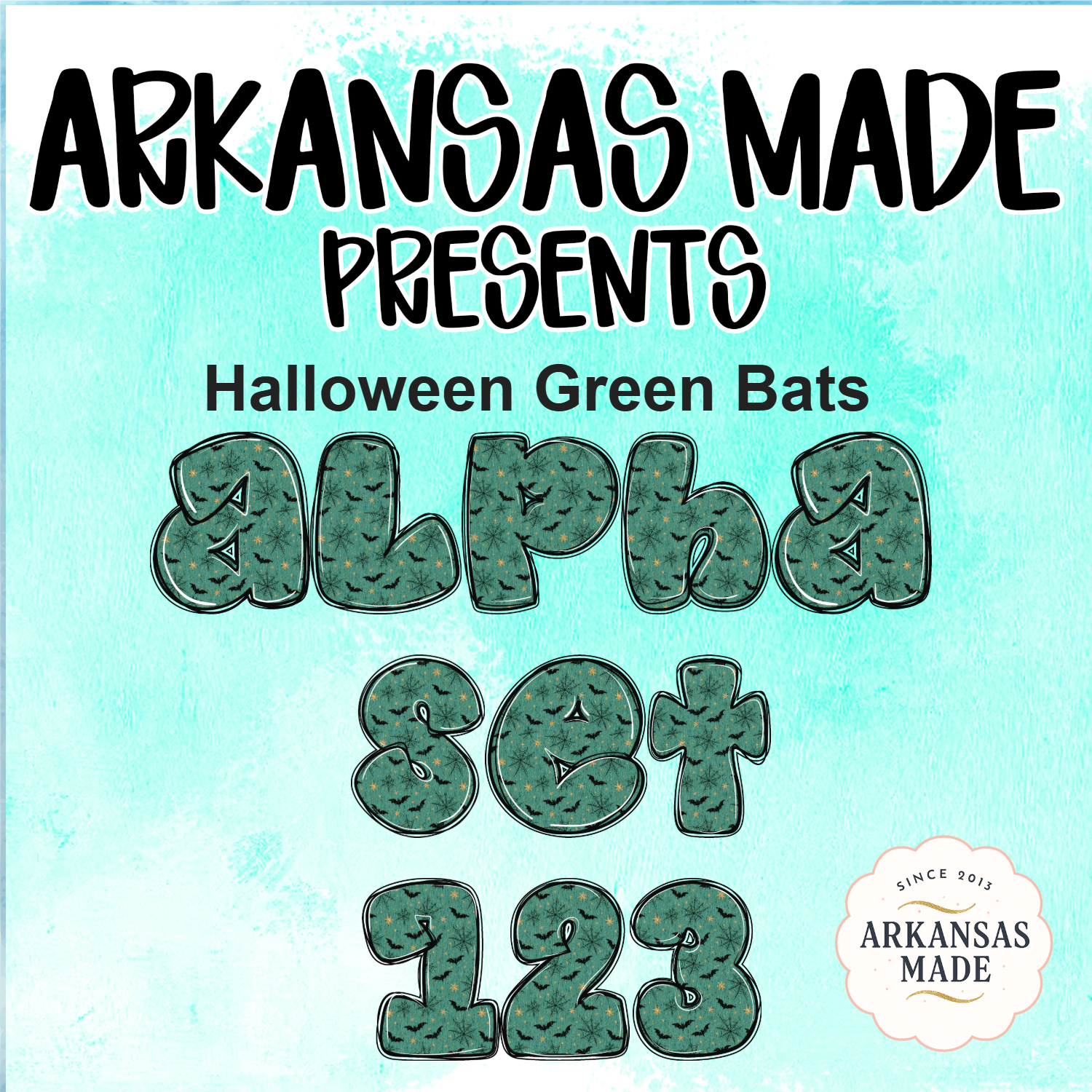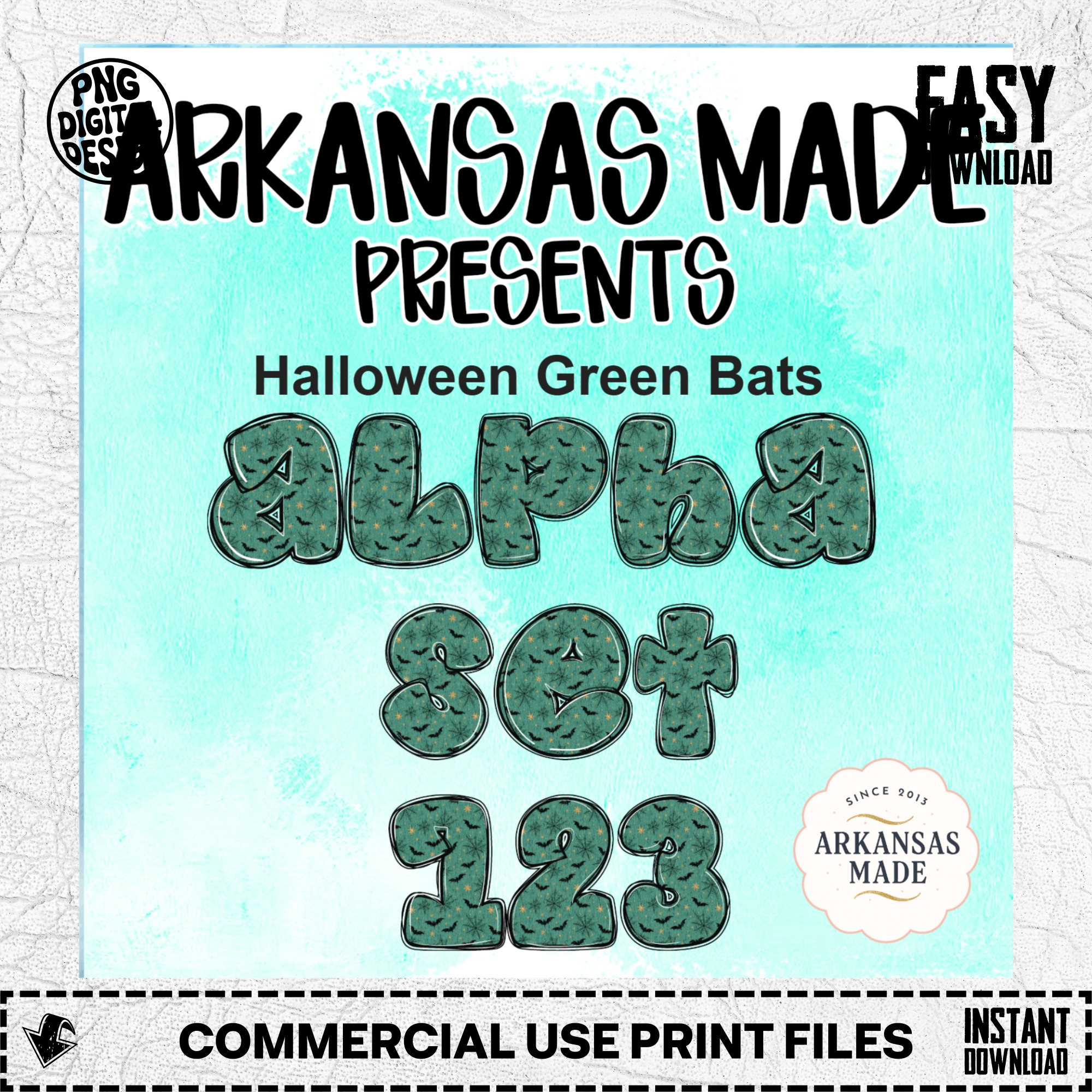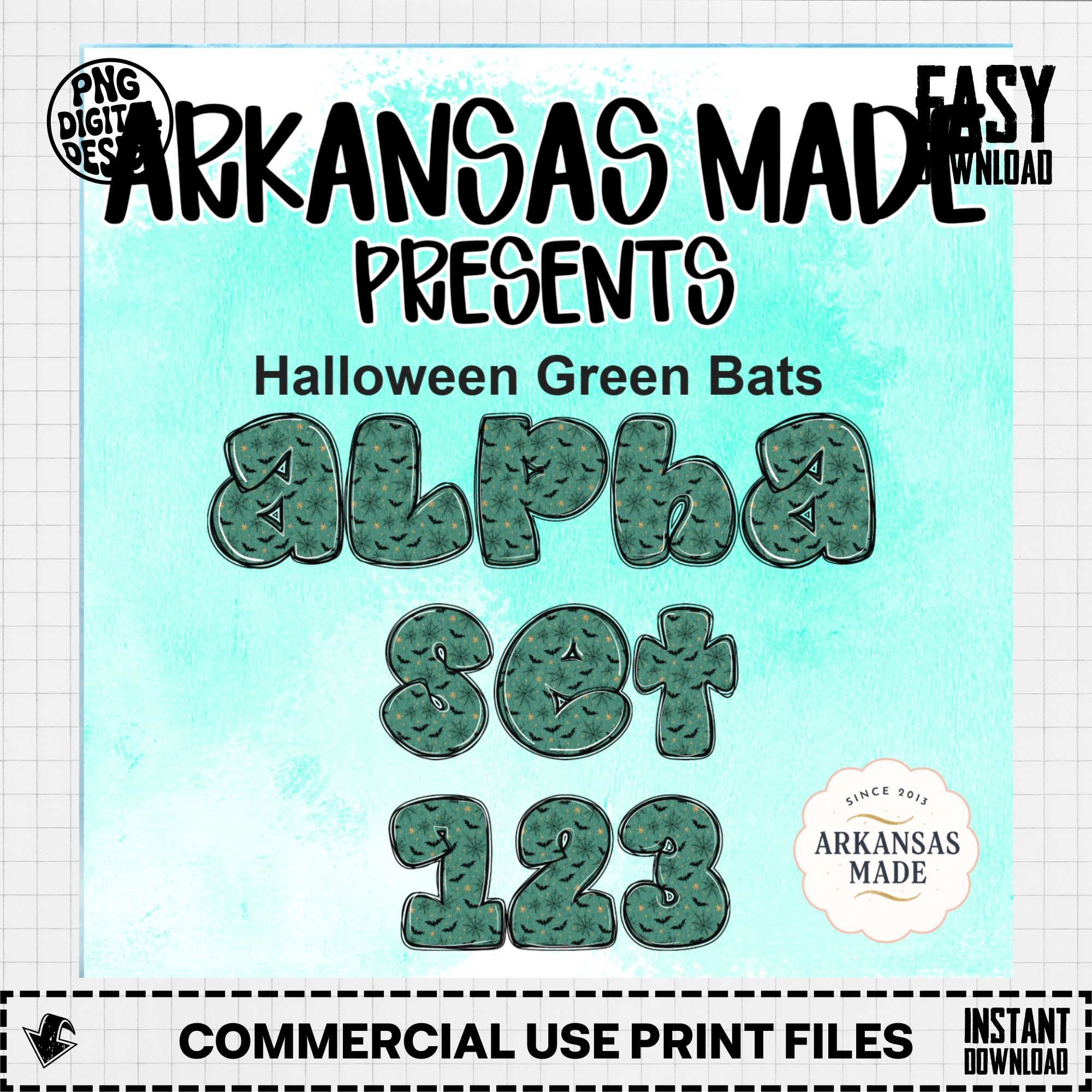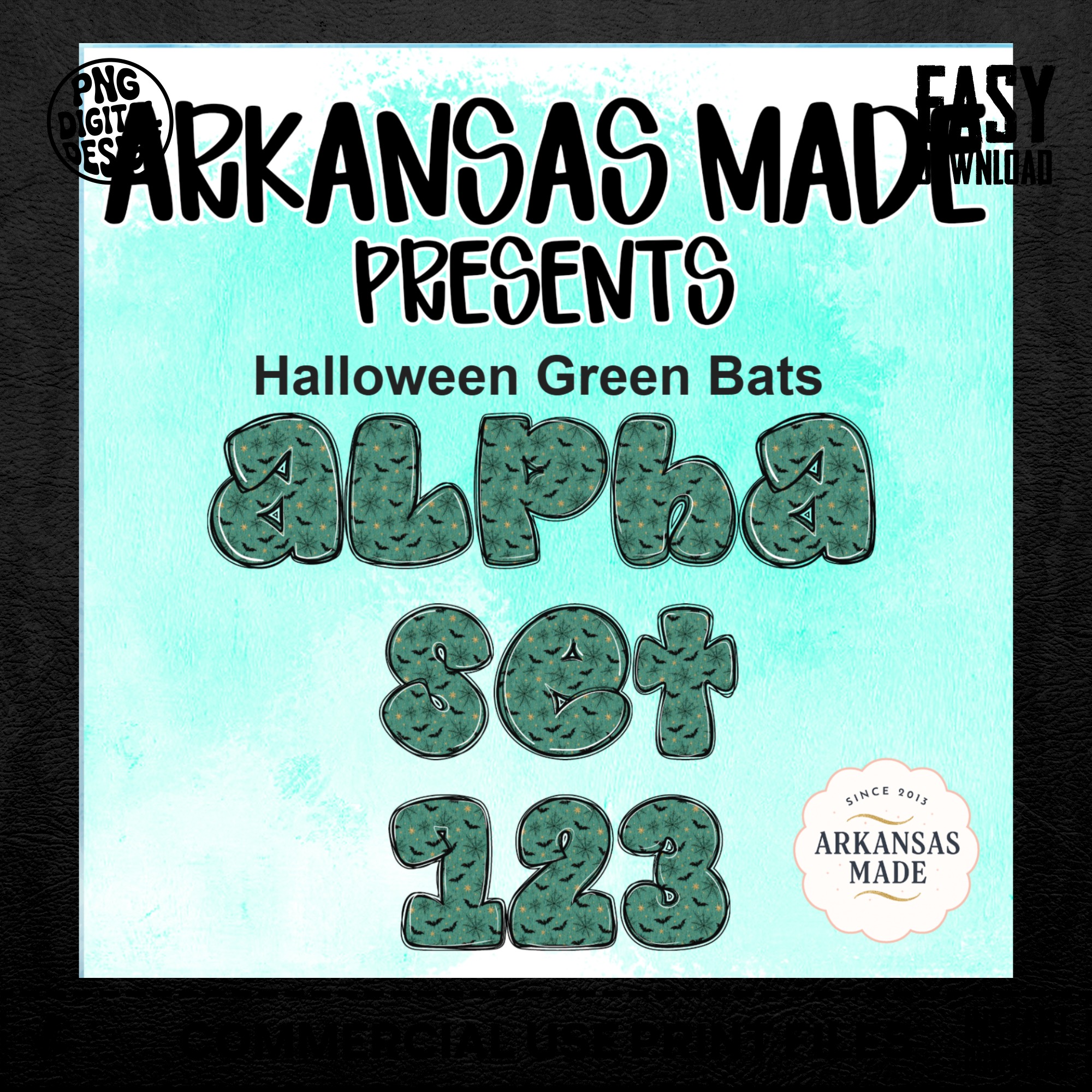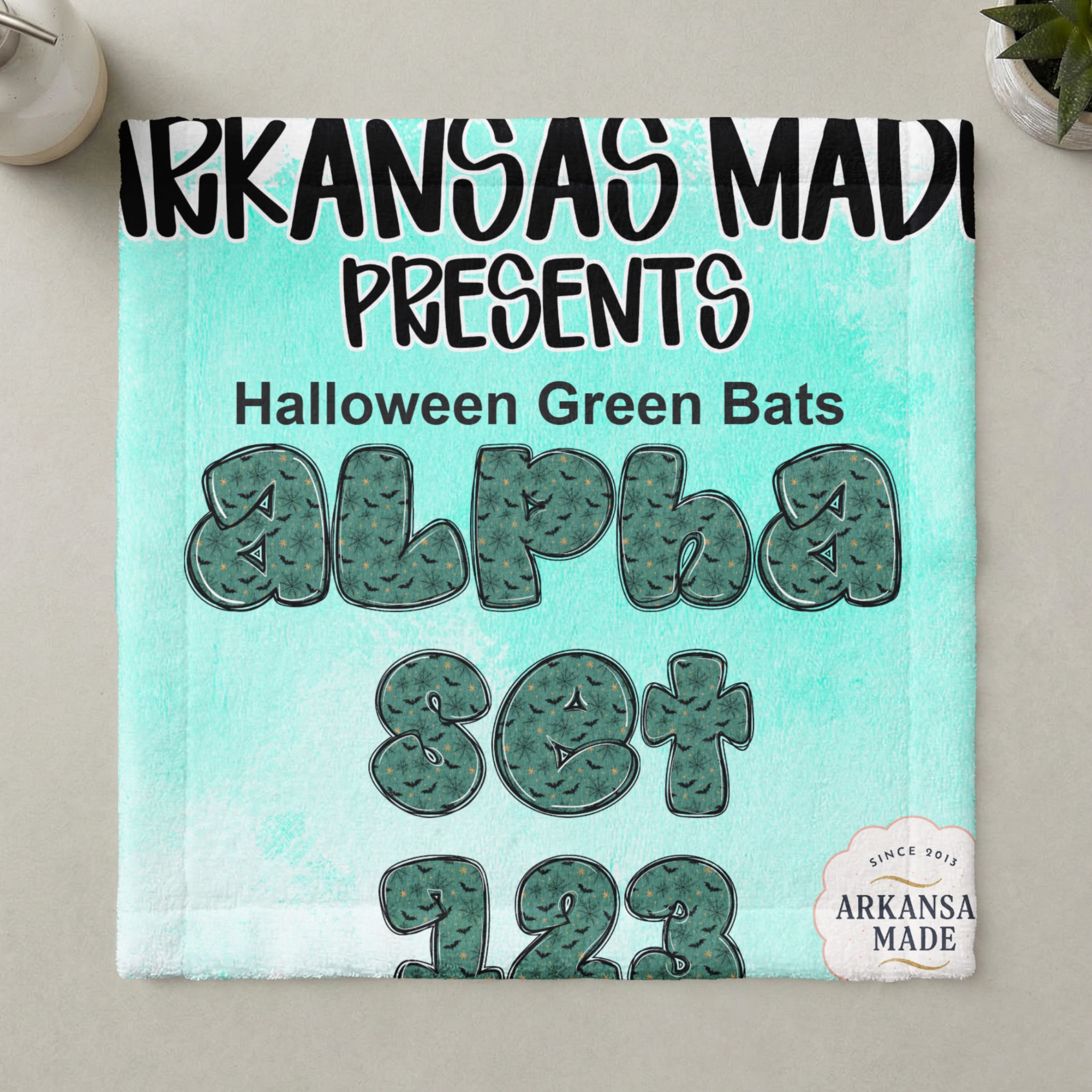
Get ready for spooky season with our Halloween Green Bats Digital Alpha PNG Set 123, featuring bubbly letters with faux gold spiderwebs and flying bats! Perfect for all your digital crafting, this Alpha Set 123 will elevate your Halloween designs. Embrace the eerie charm with this unique spooky font set, ideal for crafters, designers, and small business owners looking to add a festive touch to their products. These versatile bubble letters are fantastic for sublimation designs, custom shirts, spooky party invitations, and DIY decor, making them a must-have for any Halloween enthusiast. Bring your creative visions to life with these enchanting bat and spiderweb letters.